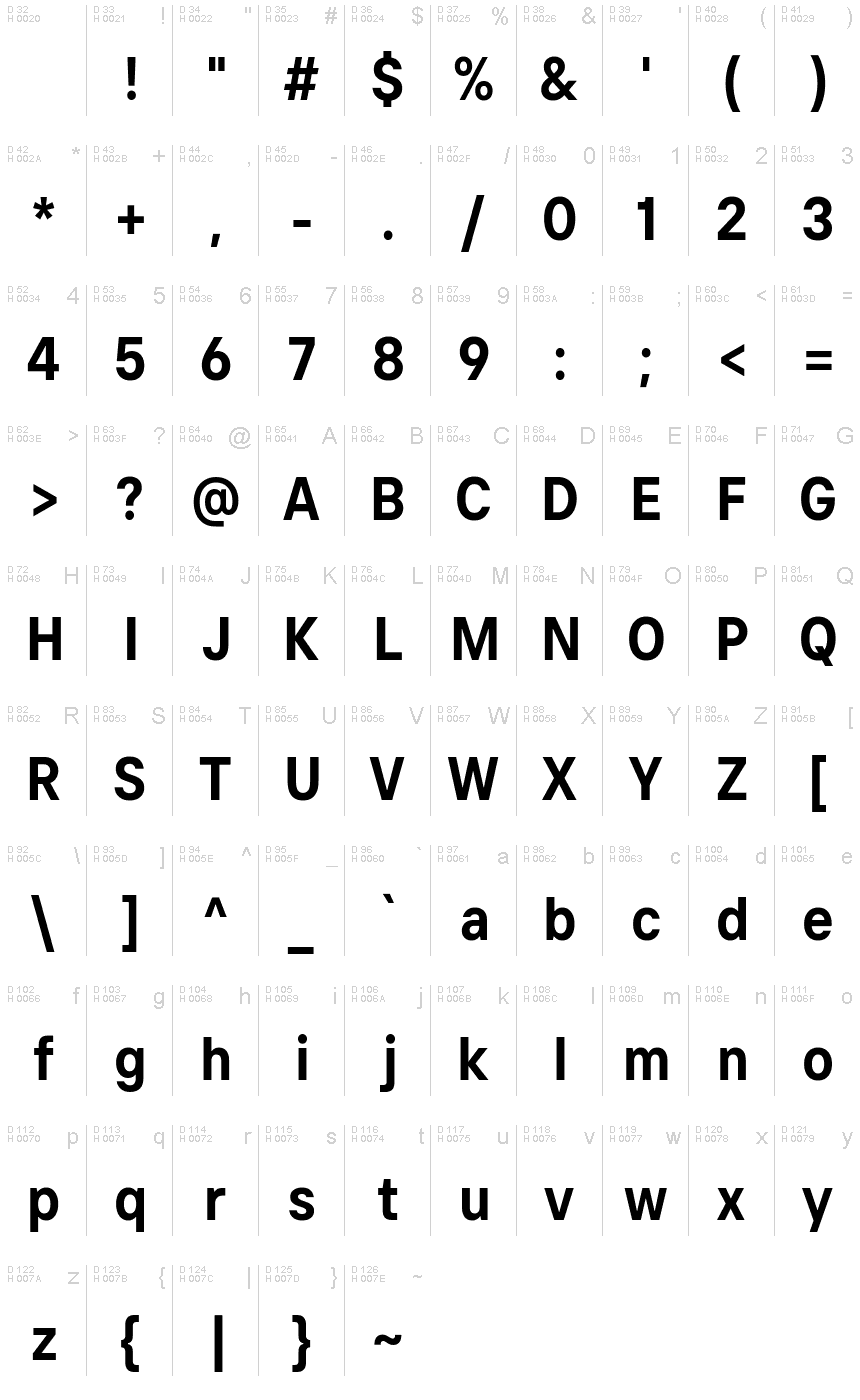
TT Interphases Pro Cnd Bd is a bold and condensed sans serif font designed by TypeType Foundry. With its sleek and compact shape, this font is perfect for creating modern and eye-catching designs.
Its strong and pronounced letterforms make it suitable for various projects, including display headings, logos, posters, and packaging. The condensed width of the font allows for efficient use of space without sacrificing legibility or impact.
Whether you're designing a tech startup website or a trendy fashion magazine, TT Interphases Pro Cnd Bd is sure to make a bold statement.